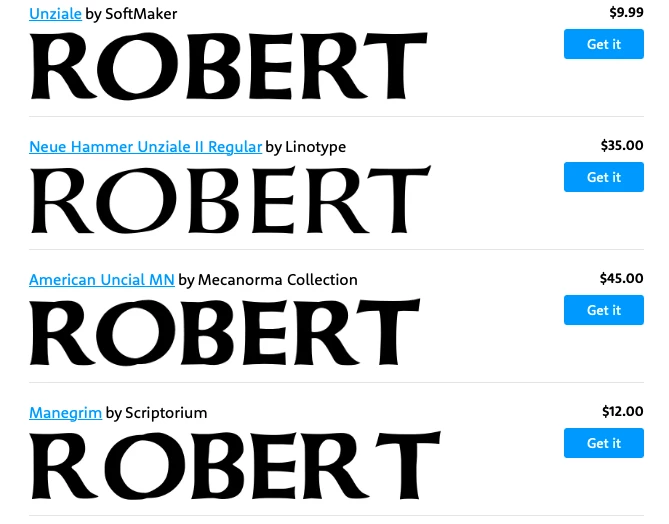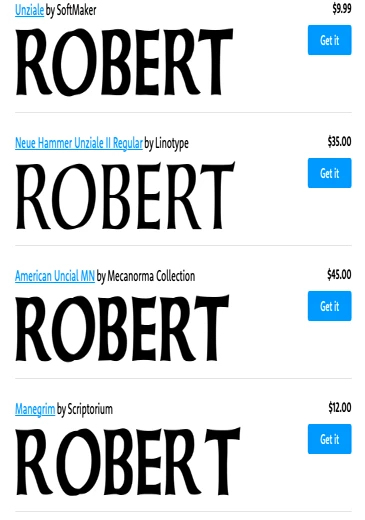
How can I copy a font from an image
Hi, I'm trying to recreate a client logo in illustrator from a provided low res .jpg. I've recreated the design elements using the curvature tool but the font is a problem.
The client doesn't know what font was used originally and I can't find a match anywhere. I can't really use the curvature tool because the font is heavily pixelated when zoomed in.
I've also tried magic wand and the creation of a work path in photoshop but as I can only set the tolerance to 0.5px it brings in a load of points I don't want. As a result, the import looks crazy when I paste it into my illustrator project?
Any help would be greatly appreciated?
Whatthefont came up with some good options:
I think it might be Unziale, American Uncial or Manegrim with a lot of horizontal scaling applied.
There are places (including here) where you can post your image and see if anyone recognizes the font.
Thanks, SJRiegel, I've attached below a sample of the text.
Whatthefont came up with some good options:
I think it might be Unziale, American Uncial or Manegrim with a lot of horizontal scaling applied.